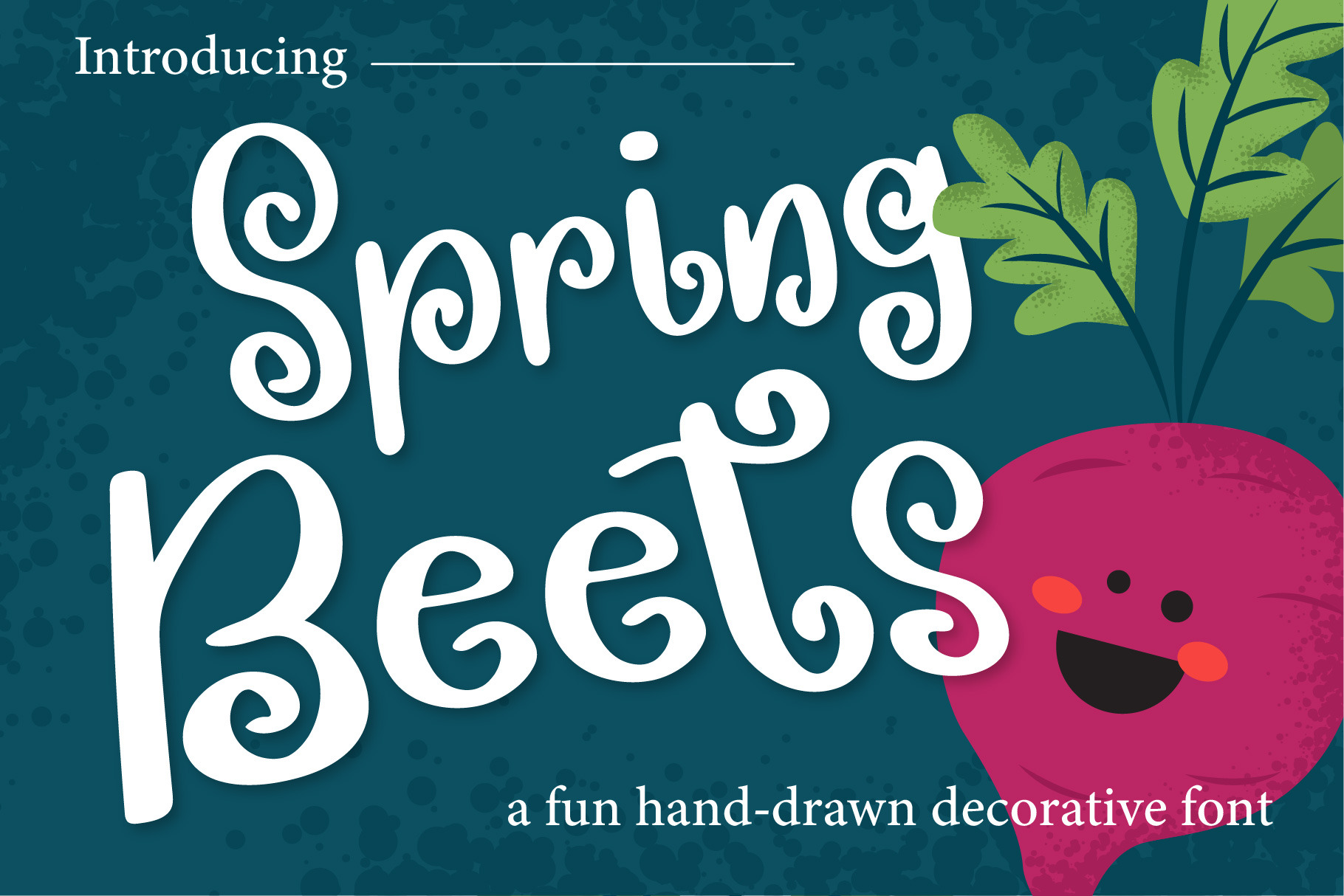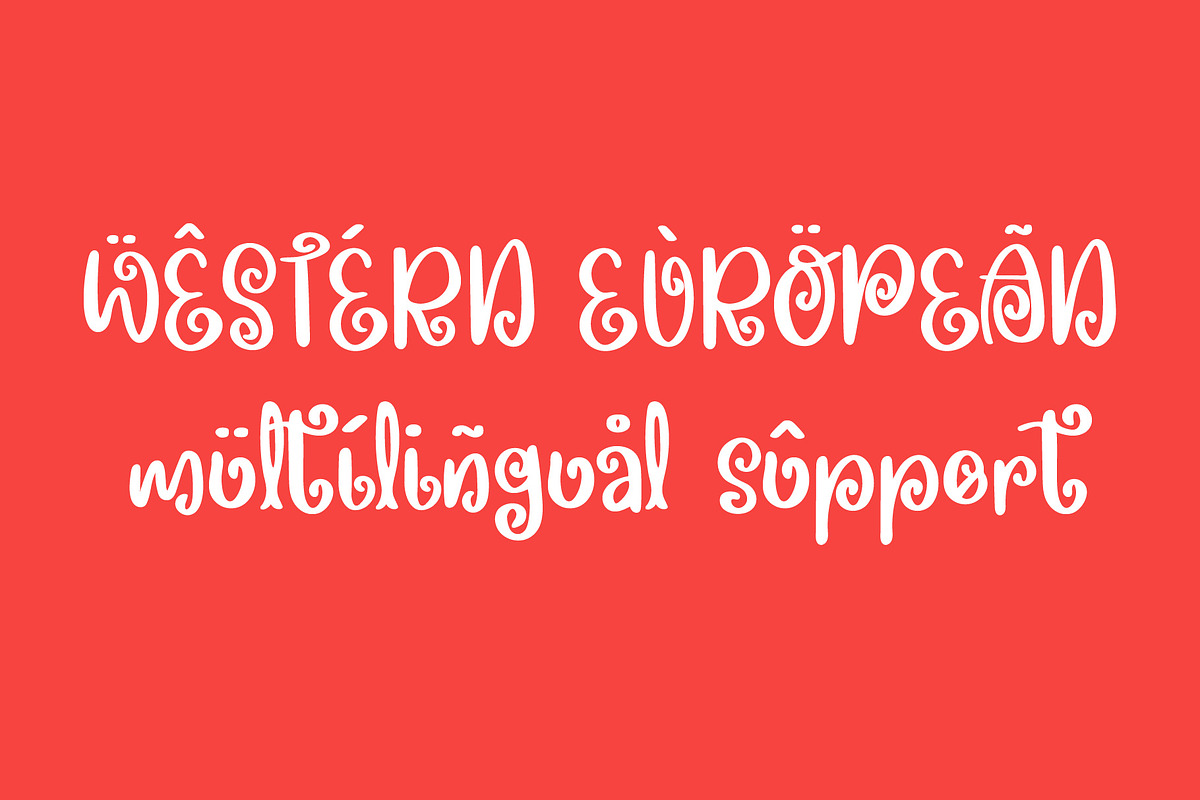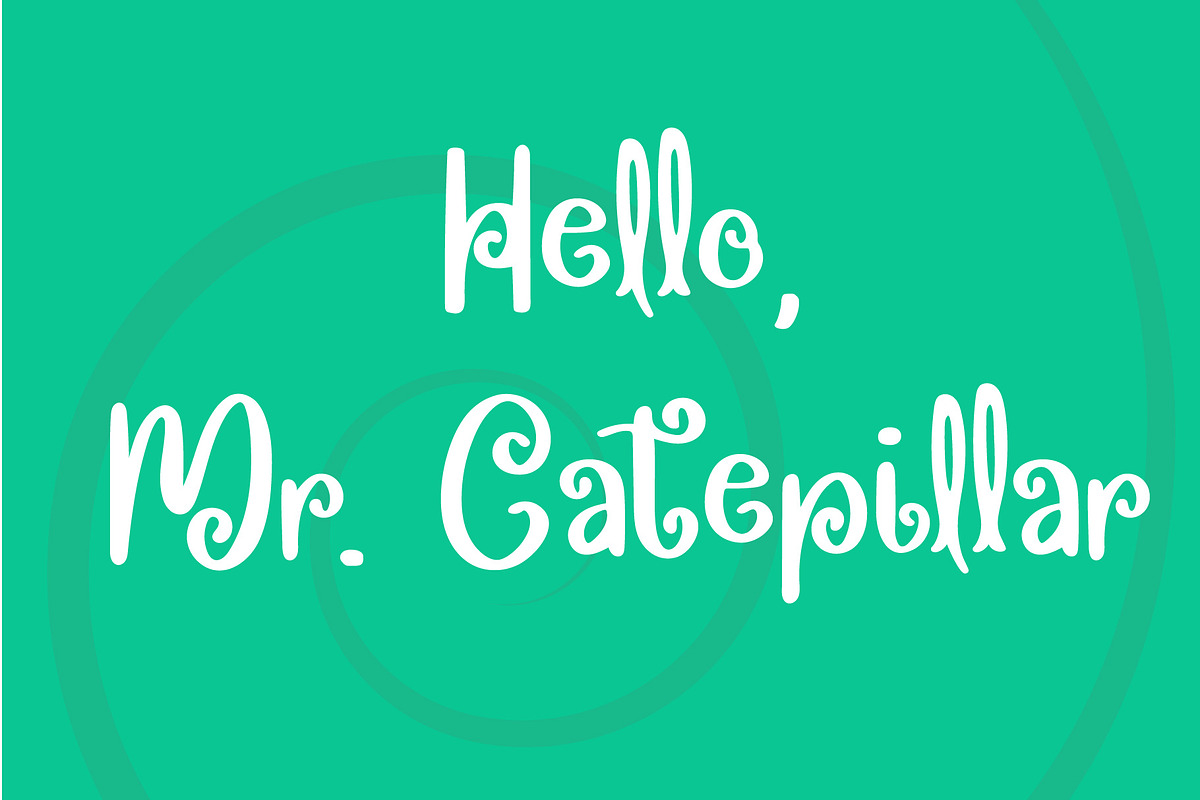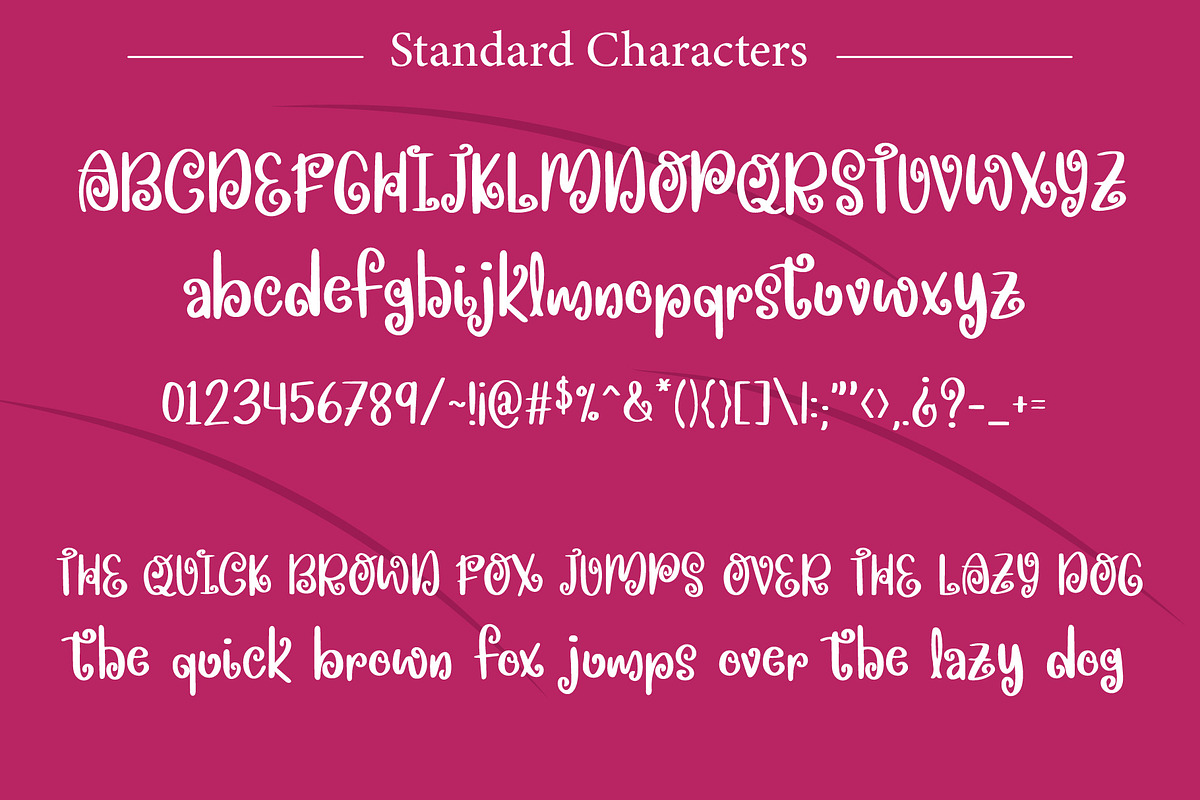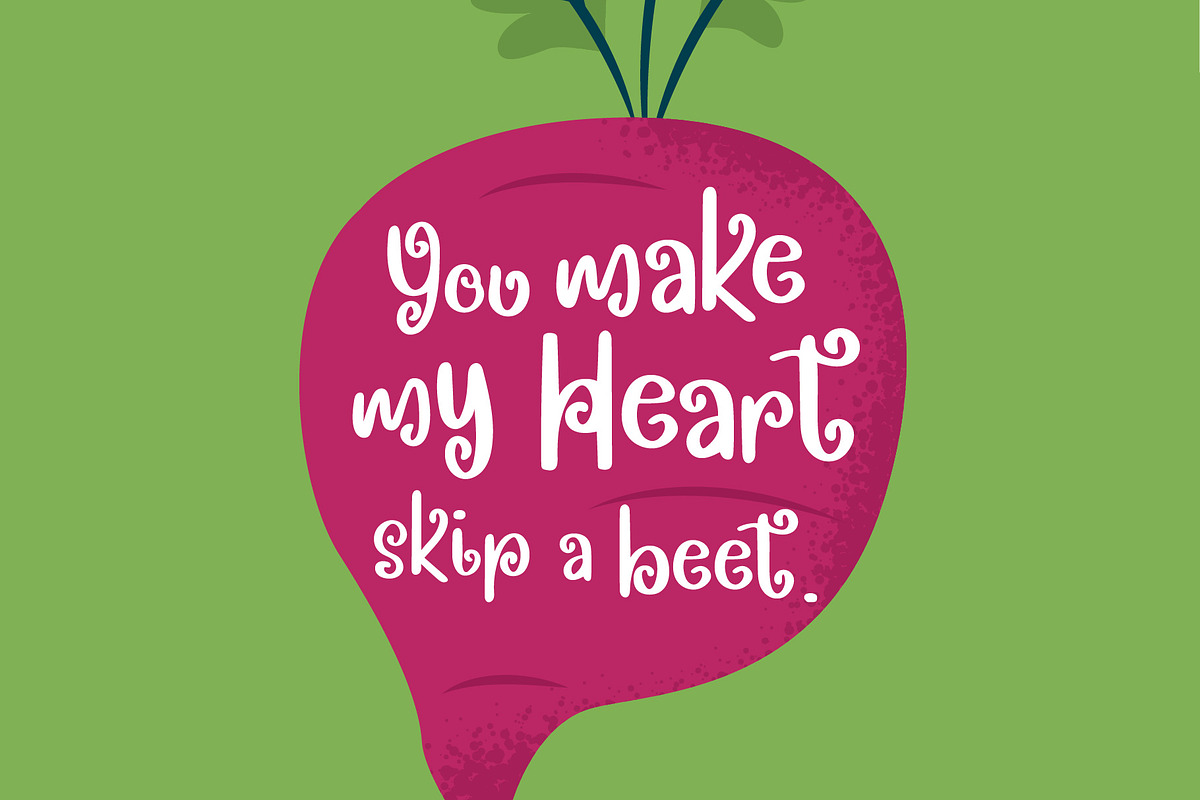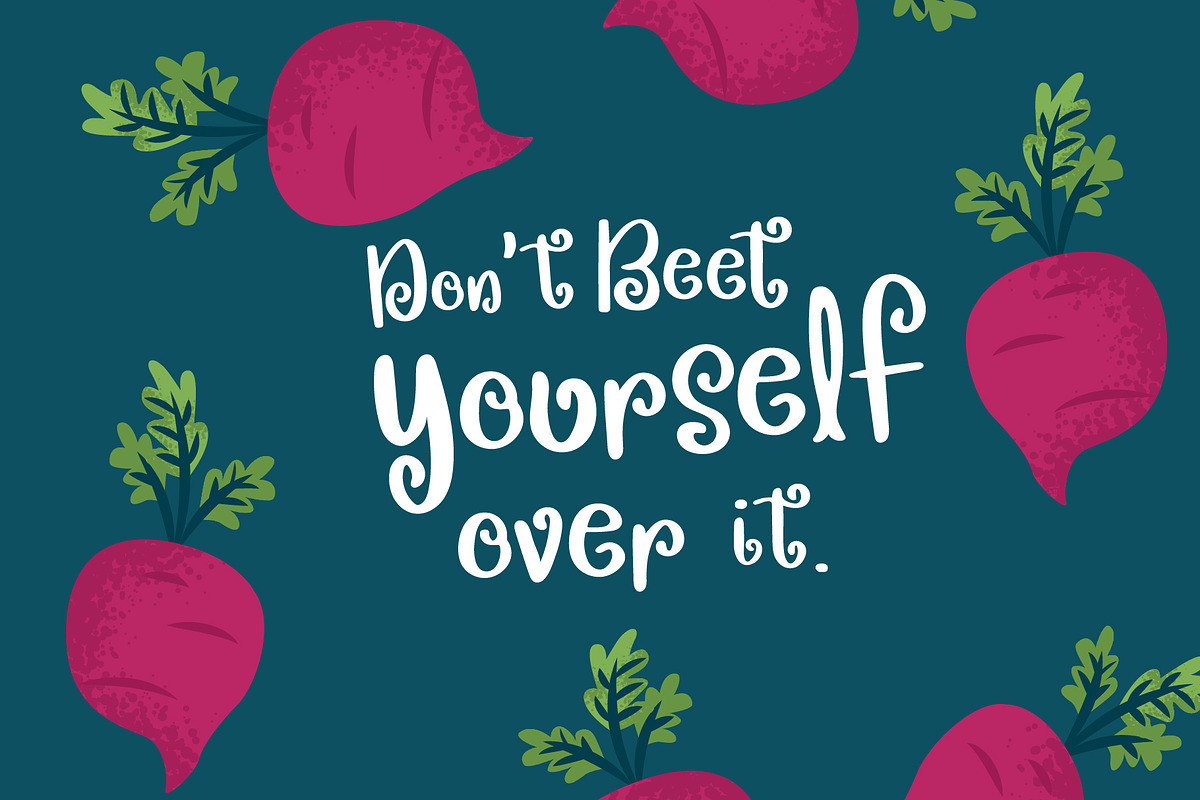
Spring Beets Font
Introducing, Spring Beets. I wanted to make a font that's fun, decorative, and crafty. Something that I can see in a children's book, greeting card, craft projects, etc. This PUA font is perfect for professional designer, social media, or crafters.